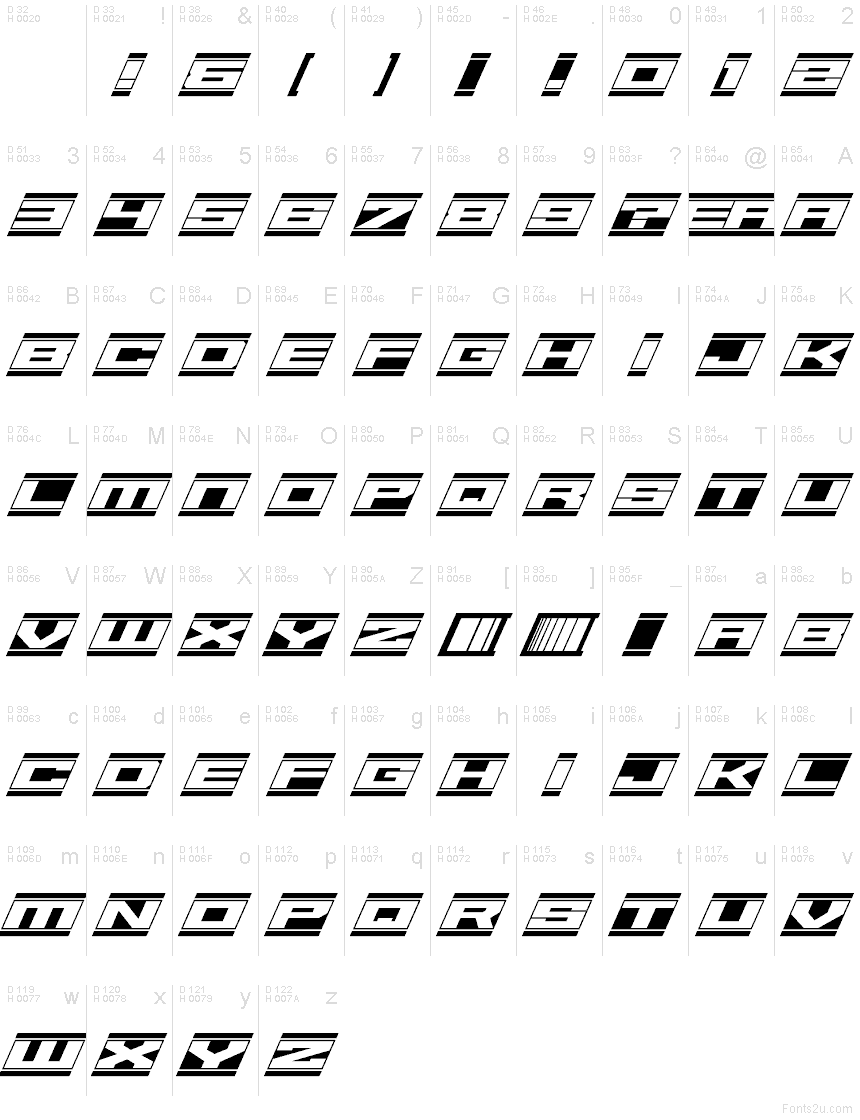
Gear-Reverlight
Gear6 Reverlight font by Youssef Habchi is a free techno display font. Built within tilted, panel-like shapes, each letter feels bolted to a chassis, with sharp bevels and a forward lean that screams acceleration. The Gear6 family DNA shows in its angular rhythm and sliced joins, delivering a clean, high-torque look that reads fast and stays crisp at large sizes.
Using Gear6 Reverlight, you get instant motion for esports branding, racing posters, sci‑fi titles, tech event signage, gadget packaging, stream overlays, and dashboard headers. This free font thrives in all caps with a touch of extra tracking. Pair it with a plain geometric sans for body copy to let the slanted panels do the talking.